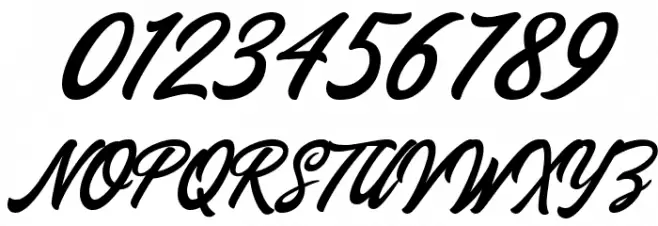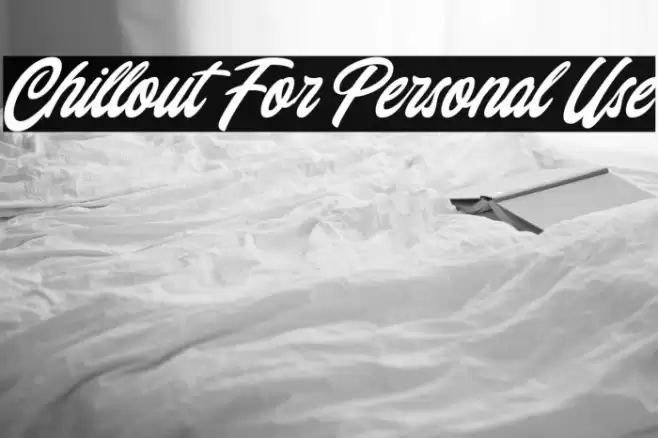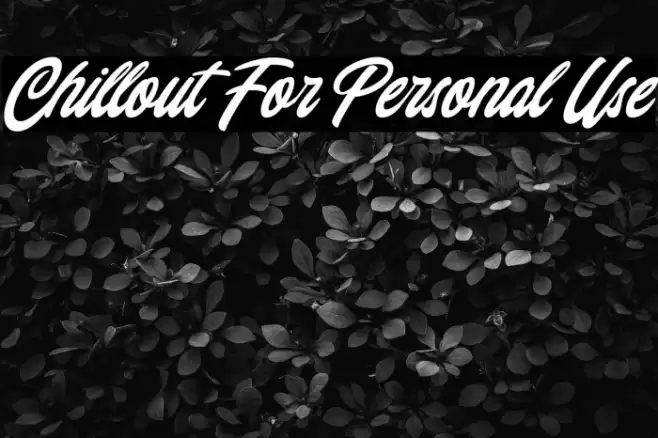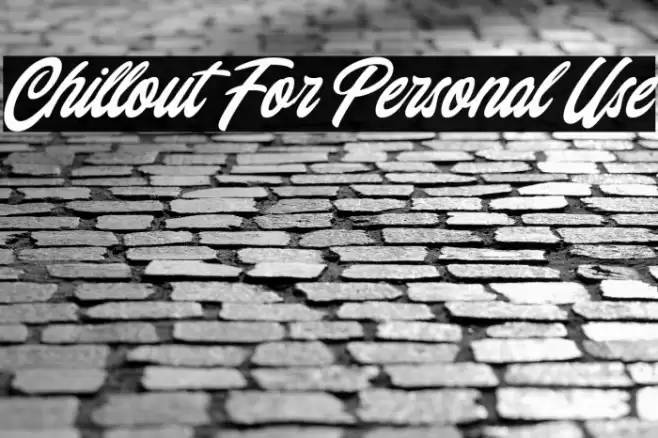
Chillout [For Personal Use] Font
Chillout [For Personal Use] Description
This font features a bold, flowing script style that mimics the fluidity of handwriting. The letters are connected, creating a seamless and elegant appearance. The uppercase characters are slightly larger and more pronounced, while the lowercase letters maintain a consistent flow. The numbers are styled to match the cursive nature of the alphabet, ensuring a cohesive look. Special characters are included, maintaining the same stylistic elements. The overall design is dynamic and expressive, making it suitable for creative and artistic projects.
A bold, flowing script font with a handwritten appearance from Regular fonts.
- Proposed Projects: Ideal for invitations, greeting cards, logos, and branding materials that require a personal and artistic touch.
- Character Spacing: Tight
- Use Case: Logos, Headlines, Invitations